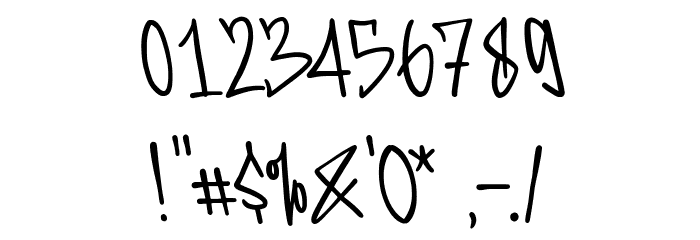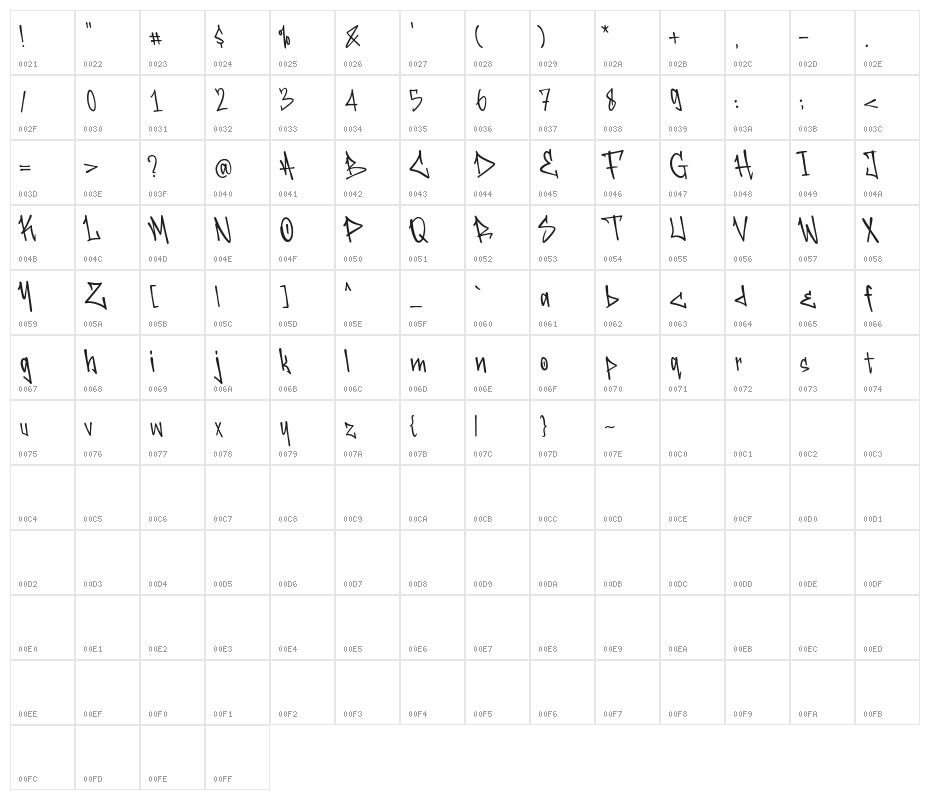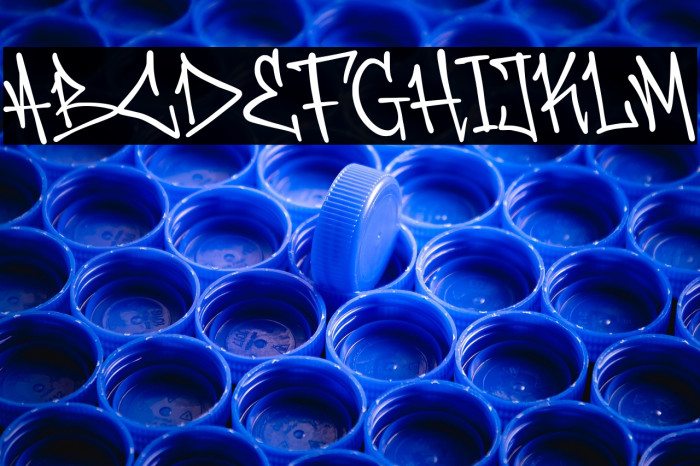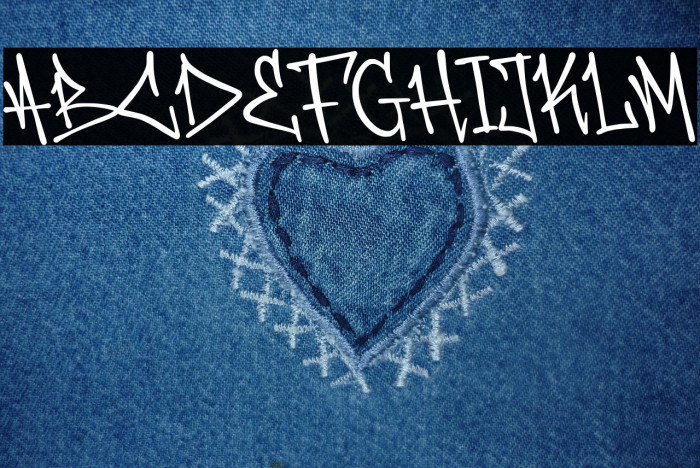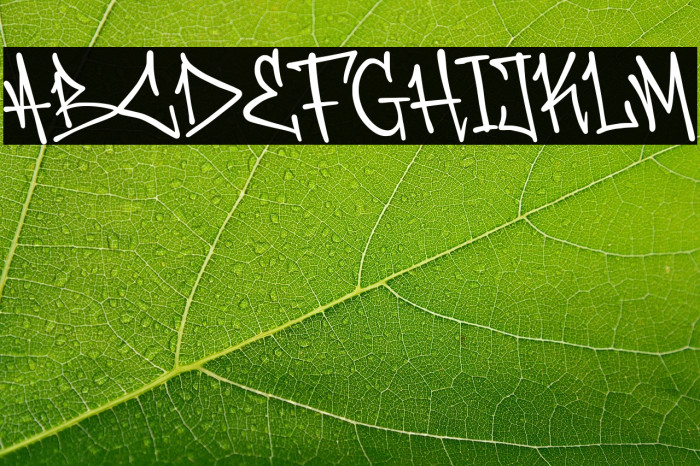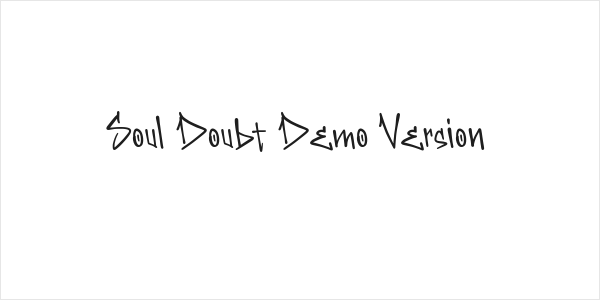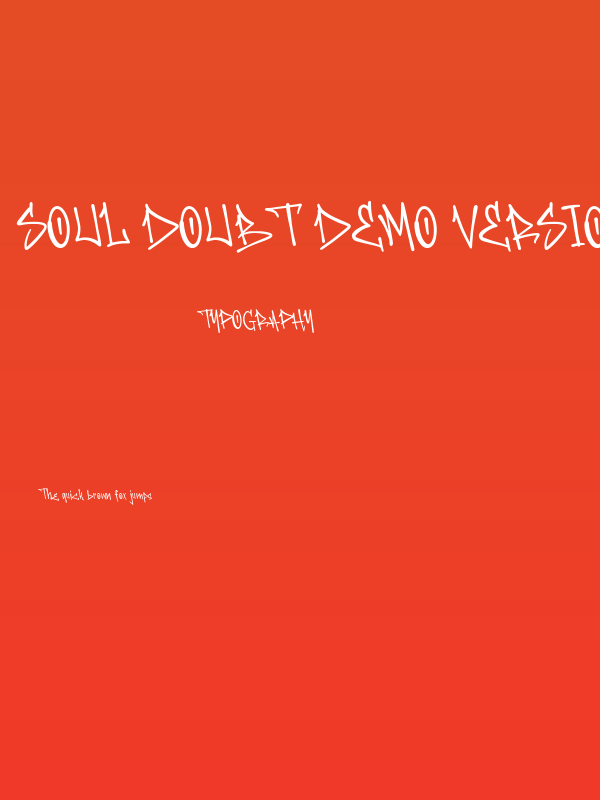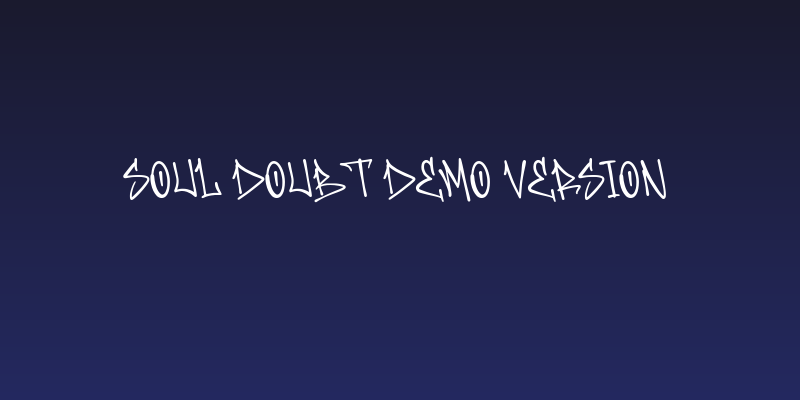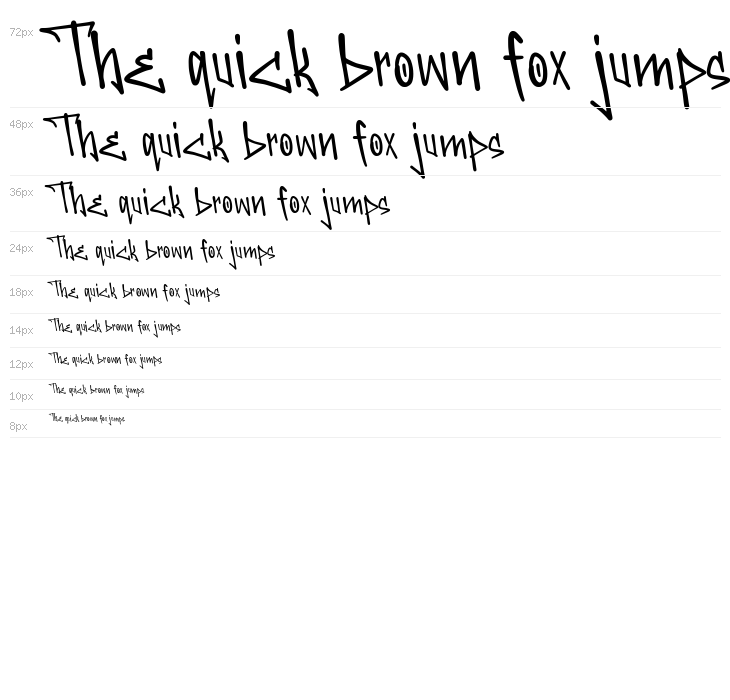
Soul Doubt Demo Version Font
Soul Doubt Demo Version Description
This font features a dynamic and edgy style, characterized by sharp angles and a graffiti-like appearance. The uppercase letters are bold and assertive, with a distinct urban flair that suggests movement and energy. Lowercase letters maintain the same energetic style, offering a cohesive look across different text cases. The numerals are equally expressive, ensuring consistency throughout. Special characters are designed with the same attention to detail, making them suitable for creative and unconventional projects. This font's unique style is perfect for projects that require a bold and artistic touch.
| Overall Style | Modern, Urban |
| Proposed Projects | Ideal for street art designs, music album covers, urban-themed posters, and edgy branding projects. |